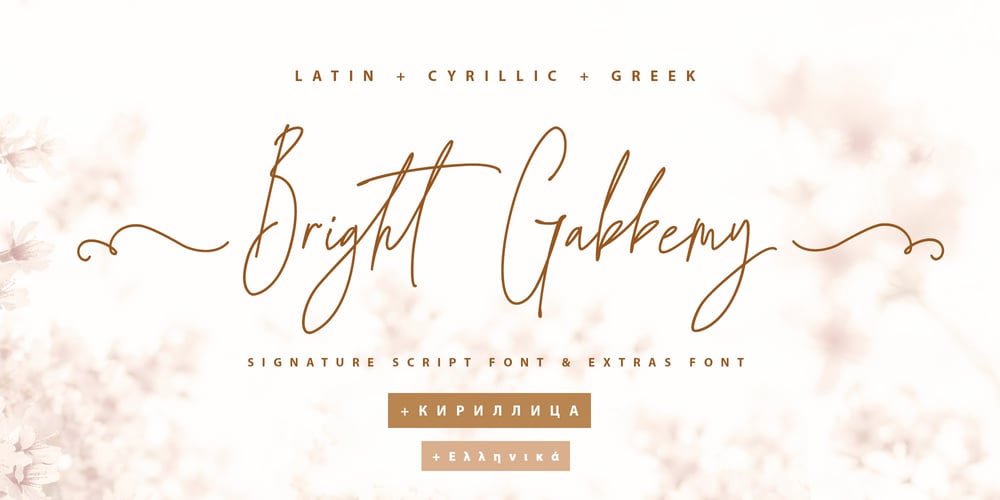
Bright Gabbemy Cyr Gr Font Family was designed by Iryna Dviliuk and published by Ira Dvilyuk. Bright Gabbemy Cyr Gr contains 2 styles and family package options. The Bright Gabbemy Cyrillic Greek is handwritten monoline signature script font and additional symbols font with extras.It is the font pair with will be the best option for branding, logos, wedding invitations, social media, packaging, business cards, DIY projects, social media, and many others.Bright Gabbemy Symbols is the font with 36 lovely hand-drawn flourishes and illustrations.Bright Gabbemy Cyrillic script font contains the Cyrillic and Greek glyphs too.Bright Gabbemy script Latin part contains a full set of uppercase letters and 2 full sets of lowercase letters, (standard, and final forms with flourishes or teils. To make a needed form just type a letter with a number such as a1, b1, c1…after that select the word and apply the Open Type Features in programs such as Adobe Illustrator, Photoshop, and others) And 53 ligatures – which can be used to create a handwritten calligraphy look.The Cyrillic part of the font contains uppercase letters and 2 full sets of lowercase letters, (standard, initial and final form. To make a needed form just type a letter with a number such as a1, б1 в1… After that select the word and apply the Open Type Features in programmes such as Adobe Illustrator, Photoshop, and others)Bright Gabbemy Symbols is a font with over 36 hand-drawn elements, floral illustrations, and swashes and can help to make your design unique and matchless. Combine and merge swashes and illustrations to create your own designs and make borders, frames, dividers, logos, and more (just use A-Z or a-z and 0-9 keys in the included Bright Gabbemy Symbols font). A different symbol is assigned to each uppercase or lowercase standard character, so you do not need graphics software, just type the letter you need.Multilingual Support for 33 languages: Latin glyphs for Afrikaans, Albanian, Basque, Bosnian, Catalan, Danish, Dutch, English, Estonian, Faroese, Filipino, Finnish, French, Galician, Greek, Indonesian, Irish, Italian, Malay, Norwegian Bokmål, Portuguese, Slovenian, Spanish, Swahili, Swedish, Turkish, Welsh, Zulu.And Cyrillic glyphs support Russian, Belorussian, Bulgarian, Ukrainian, and Kazakh languages.